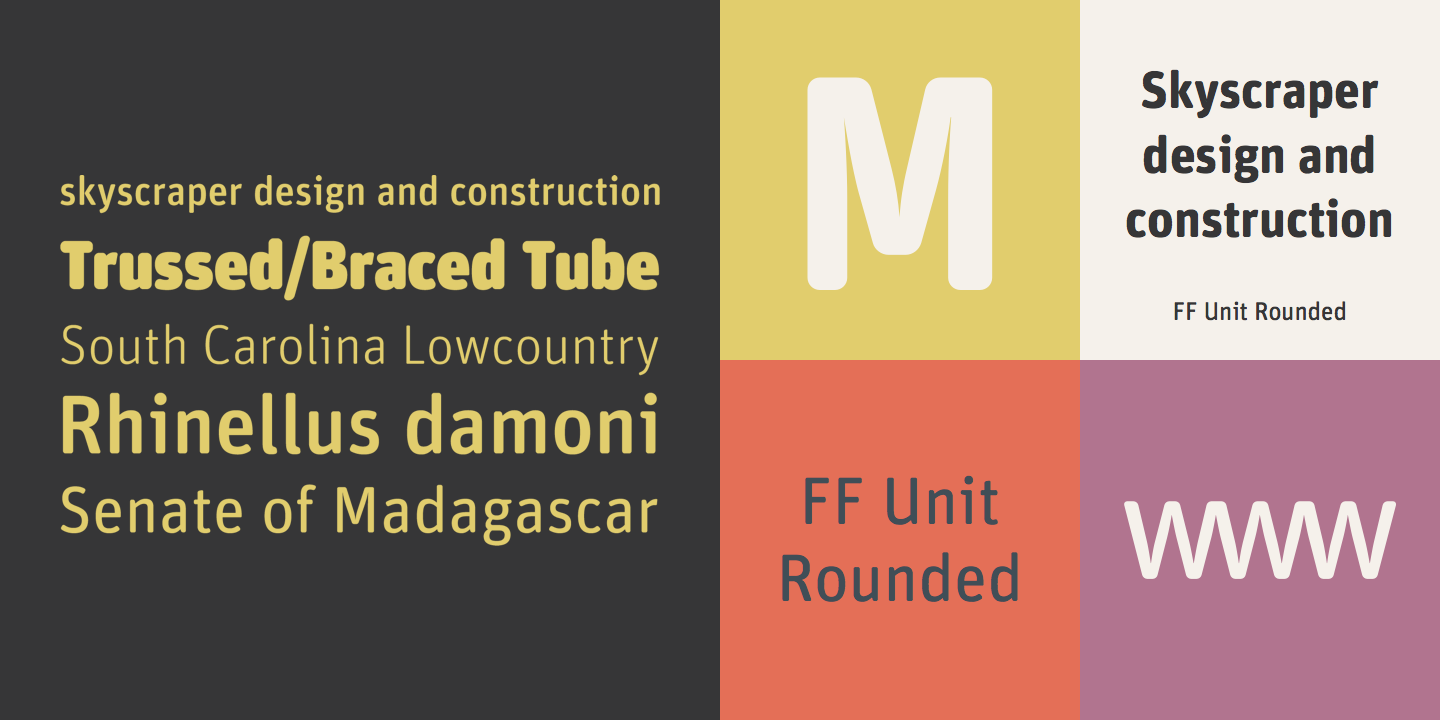
FF Unit Rounded Font is perfect for children's educational materials, friendly app interfaces, playful brand identities, modern healthcare communications, approachable tech company branding, family-oriented service designs, inclusive web layouts, youth-focused marketing campaigns, contemporary toy packaging, and welcoming digital experiences.
FF Unit Rounded Font is exciting because it masterfully balances professional functionality with human warmth through its softly rounded letterforms that eliminate harsh edges while maintaining contemporary clarity, creating communications that feel both trustworthy and approachable.
FF Unit Rounded Font family includes Regular, Bold, Light, Medium, Italic, Condensed, Extended, and Ultra-Light variations, providing designers with a complete friendly toolkit to create accessible visual communications that appeal to diverse audiences seeking both professionalism and approachability.
FF Unit Rounded Font represents the evolution of humanistic design principles in contemporary typography, making it an invaluable tool for organizations that prioritize user experience, accessibility, and emotional connection in their brand communications. This welcoming typeface brings warmth and inclusivity to any design project, whether you're developing healthcare applications, creating educational resources, or designing family-friendly service platforms. The carefully softened character edges of FF Unit Rounded Font Free Download ensure maximum approachability while maintaining excellent readability across all digital and print applications that require both professional credibility and human connection.
Healthcare and education professionals consistently select FF Unit Rounded Font for patient communications, learning platforms, and family services because of its ability to reduce anxiety and create welcoming experiences. The font's gentle appearance makes it particularly effective for targeting vulnerable populations and creating environments that feel safe and inclusive.
FF Unit Rounded Font excels in digital applications where user comfort and accessibility are paramount. UX designers and app developers rely on this font to create interfaces that feel intuitive and non-threatening, while content creators use it for materials targeting diverse age groups and cultural backgrounds.
The technology and service industries have embraced FF Unit Rounded Font for fintech apps, family-oriented platforms, and customer service communications. Its approachable visual character helps businesses create experiences that build trust and encourage user engagement, appealing to consumers who value both innovation and human-centered design in their digital interactions.